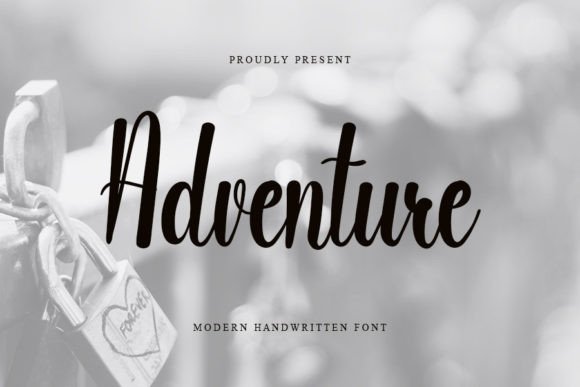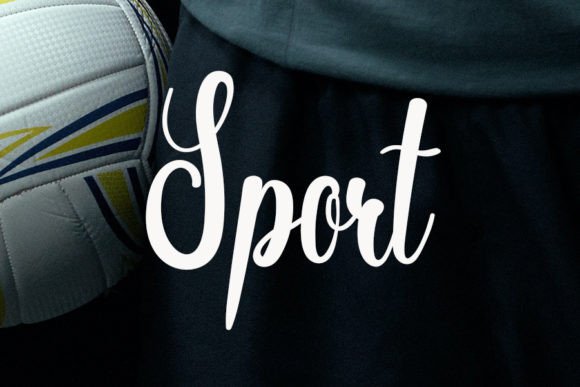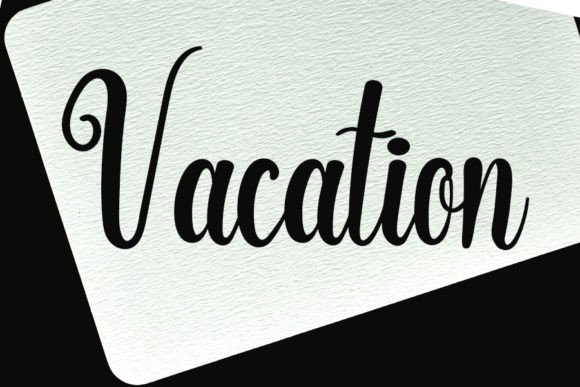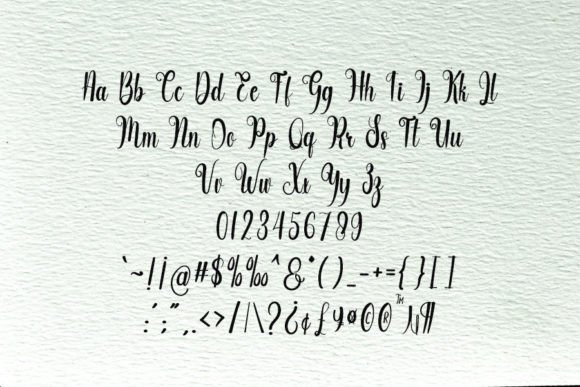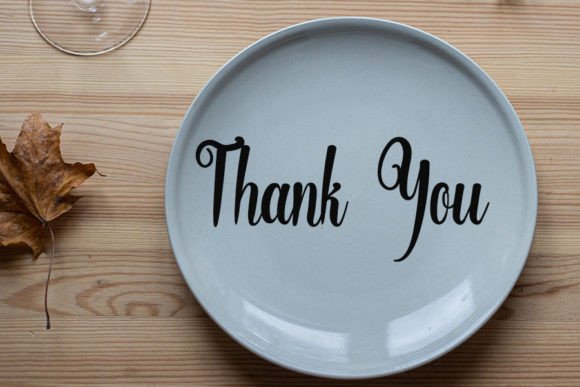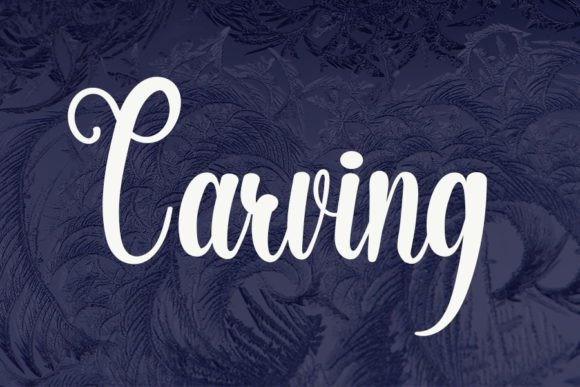
About Adventure Font
“Adventure” is not just a font; it’s a sweet and delicate handwritten typeface meticulously crafted to bring a sense of daintiness and joy to your designs. With its romantic and personalized touch, this font becomes an ideal choice for writing wedding invitations, cards, or any other creative project that requires a warm and intimate atmosphere.
The sweet and delicate handwritten style of “Adventure” is characterized by its charming and gentle appearance. The characters are carefully designed to exude a sense of daintiness, making this font perfect for projects where a soft and romantic aesthetic is desired. Whether you’re creating wedding invitations, heartfelt cards, or any other design, “Adventure” adds a touch of sweetness to your text.
The joyfulness of “Adventure” contributes to its overall appeal. The font becomes an expressive tool for conveying positive emotions, making it well-suited for projects that aim to evoke happiness and warmth. Its delicate nature makes it particularly fitting for designs that need a personal and intimate touch.
Creating romantic and personalized designs with “Adventure” is an enjoyable process. The font becomes a partner in expressing emotions and sentiments, making it an excellent choice for projects where a connection with the audience is crucial. Let “Adventure” be the font that brings a sense of sweetness and joy to your wedding invitations, cards, and various other creative endeavors.
In summary, “Adventure” is more than just a font; it’s a sweet and delicate handwritten typeface that adds daintiness and joy to your designs. Embrace its romantic and personalized touch for wedding invitations, cards, and more, confident that “Adventure” will infuse your creations with a warm and intimate atmosphere. Let it be the font that brings sweetness to your design projects.